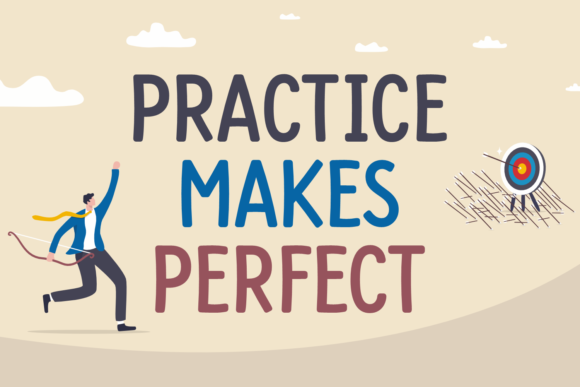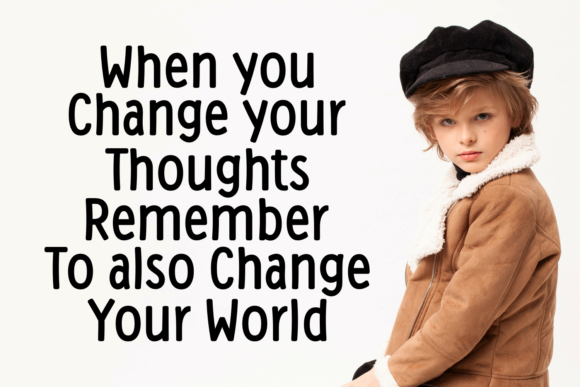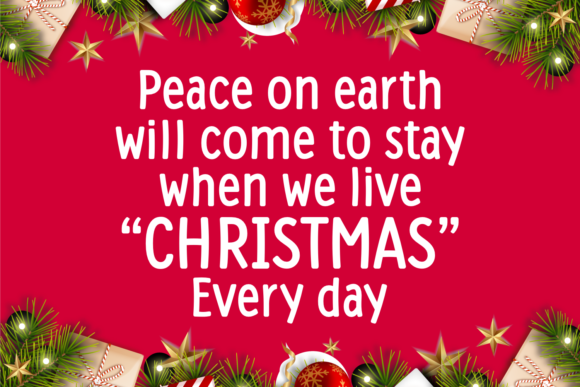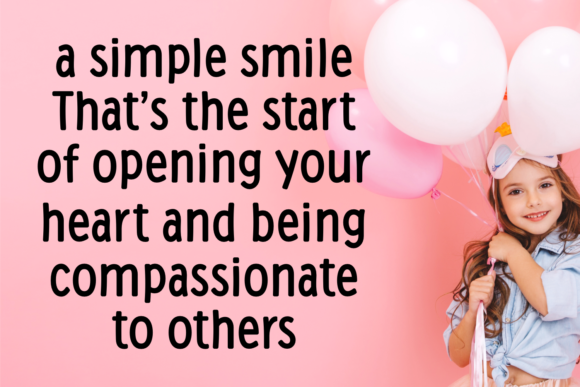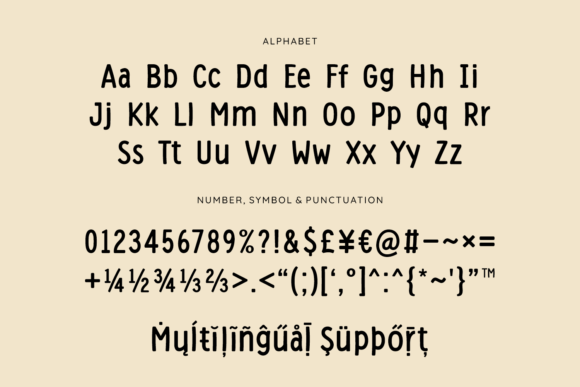
Practice Makes Perfect
Practice Makes Perfect: A Clean Slab Serif Font
Practice Makes Perfect is a clean Slab Serif font. This lovely typeface is versatile and can be used for a wide range of applications, including t-shirts, art prints, frames, wall art, greeting cards, branding, quotes, social media posts, and logos.
Key Features of Practice Makes Perfect
• Clean Design: Offers a crisp and uncluttered look suitable for various applications.
• Slab Serif Structure: Features distinctive serifs that add character and readability.
• Versatile Application: Ideal for both print and digital media projects.
• Lovely Aesthetic: Brings a charming and appealing touch to designs.
Ideal Uses for Practice Makes Perfect
Practice Makes Perfect’s unique characteristics make it particularly well-suited for:
When incorporating Practice Makes Perfect into your designs, consider these tips:
• Use for headlines or short blocks of text to showcase its clean style.
• Utilize its lovely aesthetic to create charming and appealing designs.
Practice Makes Perfect is an excellent choice for designers looking to add a clean and versatile slab serif font to their typographic toolkit. Its ability to enhance various design projects with its lovely aesthetic makes it stand out in the world of typography. Whether you’re working on t-shirt designs, creating art prints, or developing content for social media, Practice Makes Perfect offers the perfect blend of style and functionality.
Furthermore, Practice Makes Perfect’s clean design allows it to shine in various contexts. From greeting cards to branding materials, this font can elevate your projects with its distinctive style. Its readable yet charming appearance works particularly well in designs that aim to convey a sense of warmth and approachability.
In conclusion, Practice Makes Perfect is a font that truly captures the essence of clean and appealing typography. Its versatility makes it suitable for a wide range of applications, from personal projects to professional branding. For those looking to add a touch of refined charm to their work, Practice Makes Perfect can enhance themed creations with its distinctive style. It’s the perfect choice for designers seeking to make a clean, stylish impact across a wide range of creative projects.